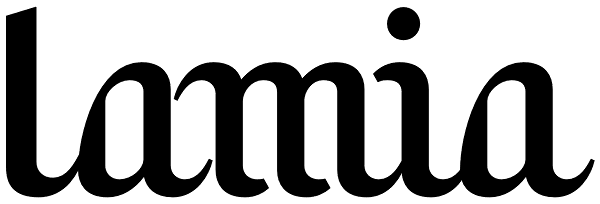
Lamia
The Lamia font is inspired by the work of the most famous calligrapher of the Basque Country, Jose Francisco de Iturzaeta Eizaguirre (Getaria1788-Madrid 1853). His writing method was compulsory in Spanish schools since 1835. His "unpolished Spanish...